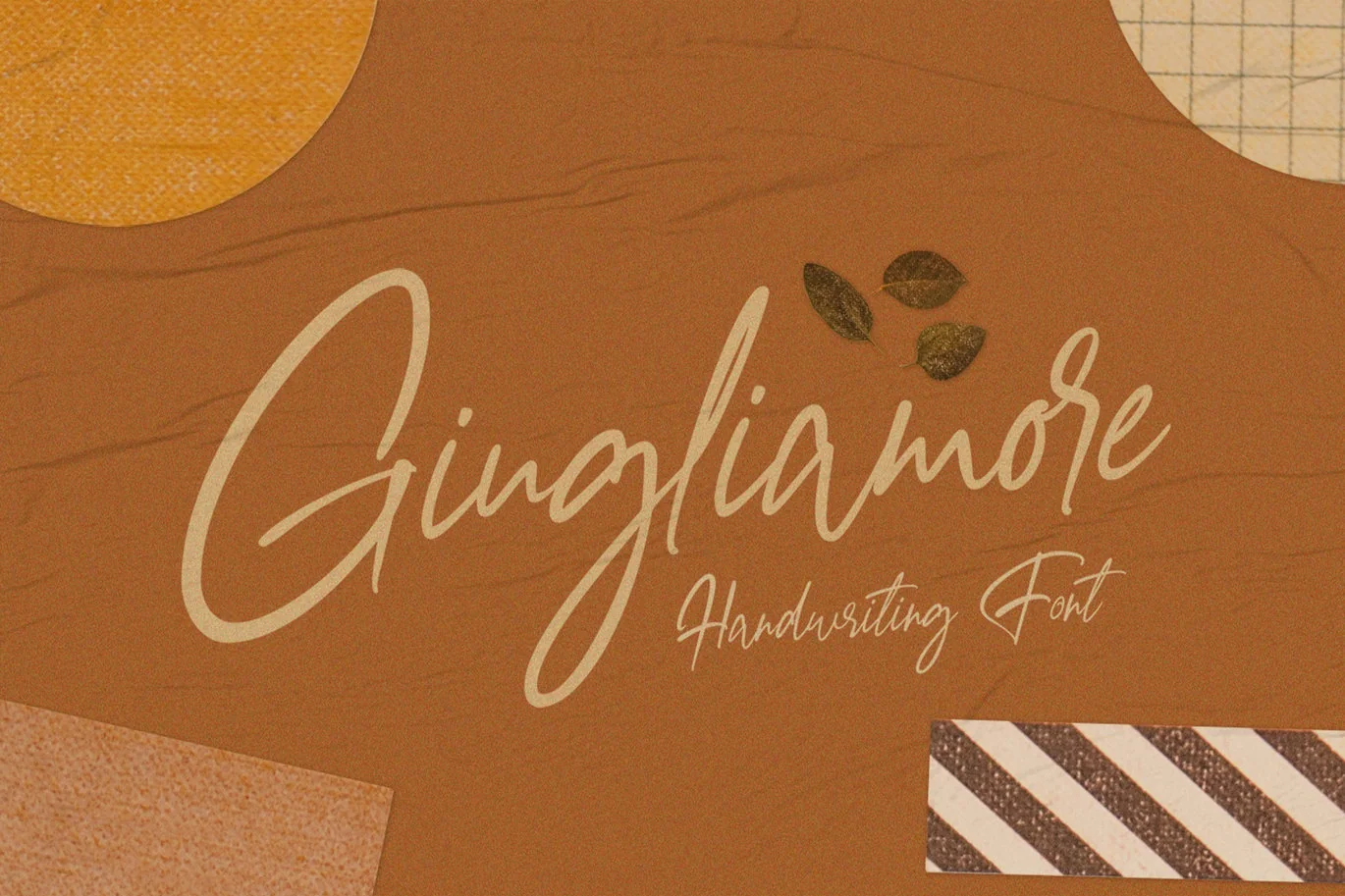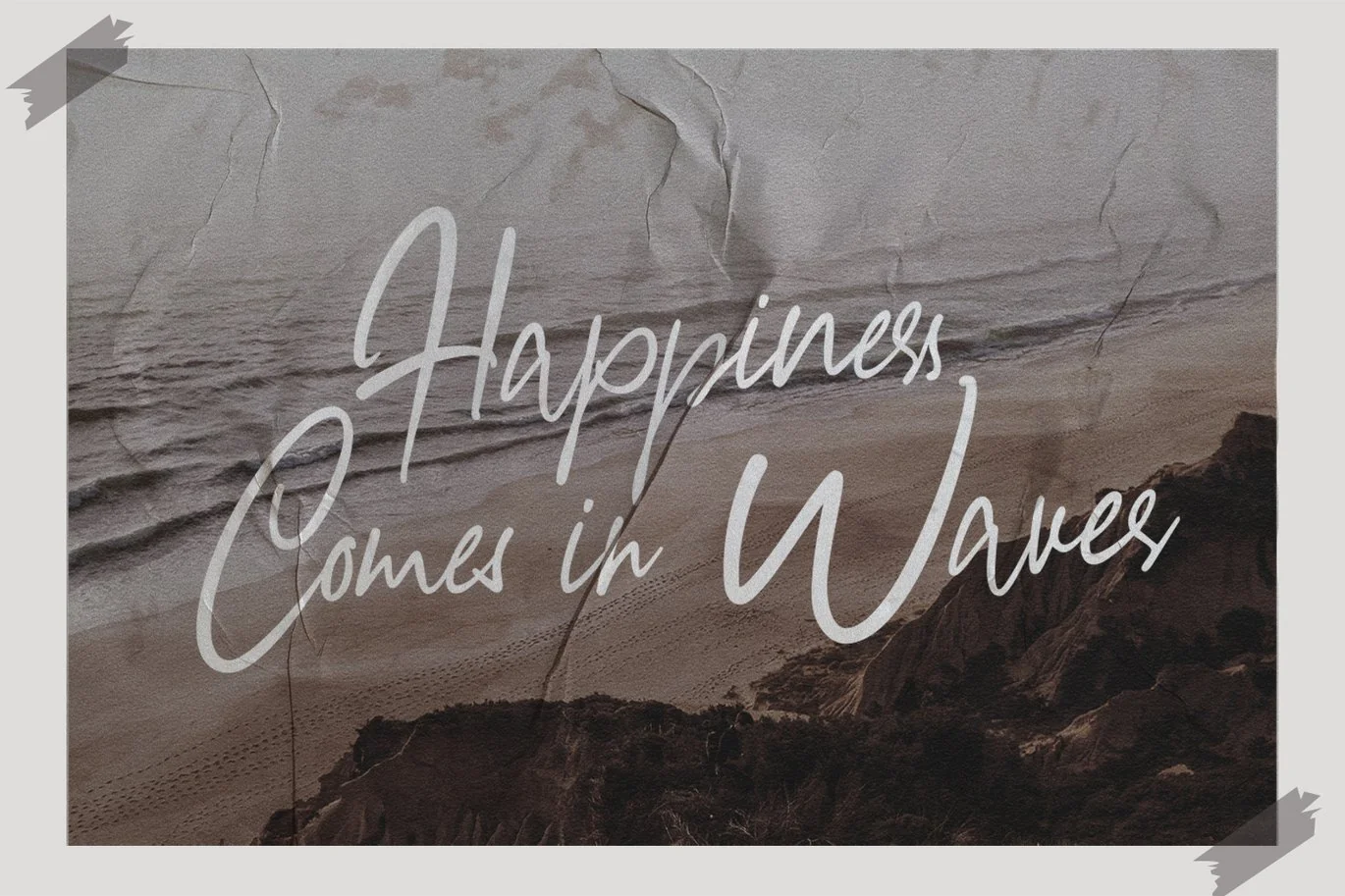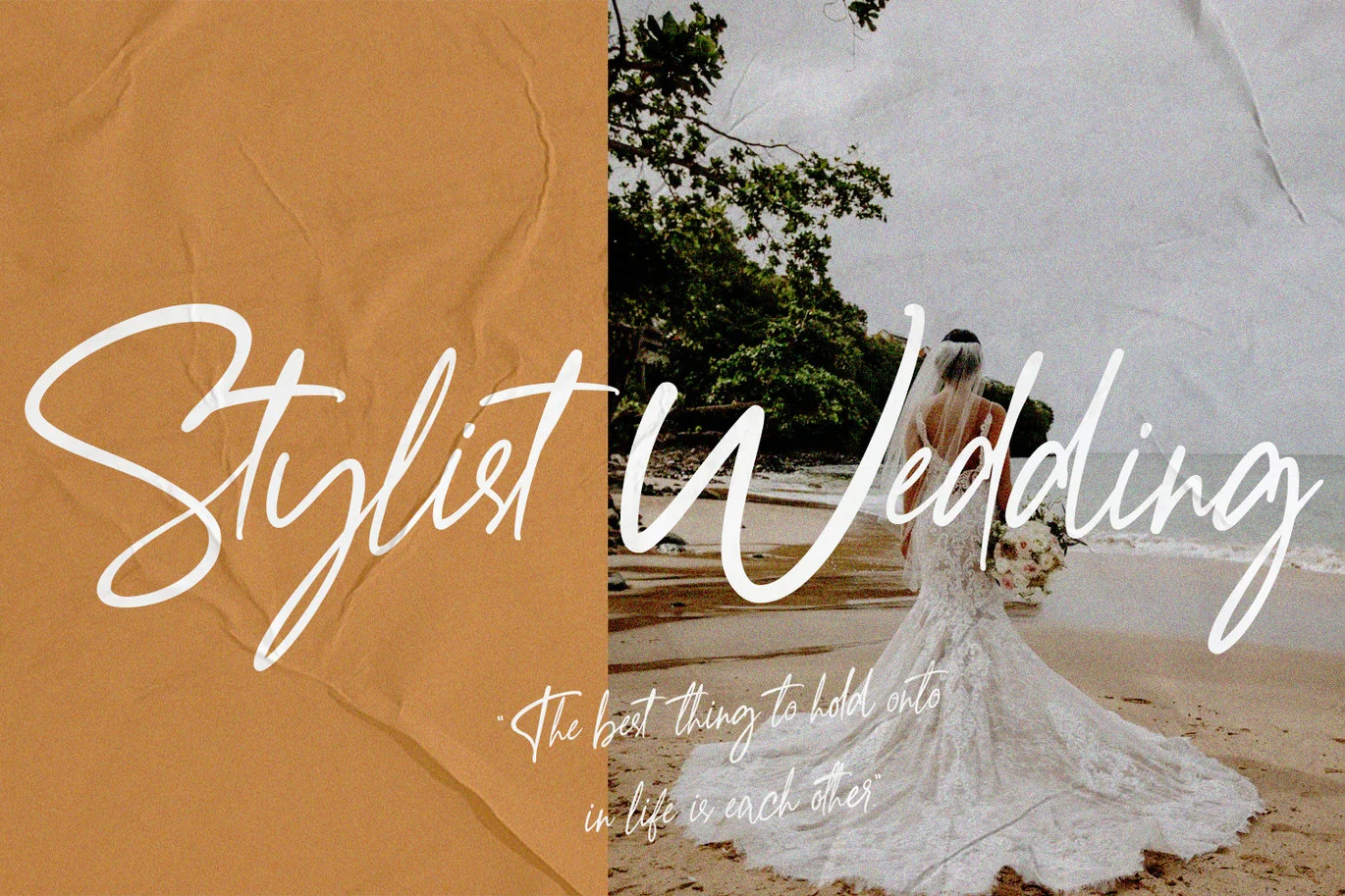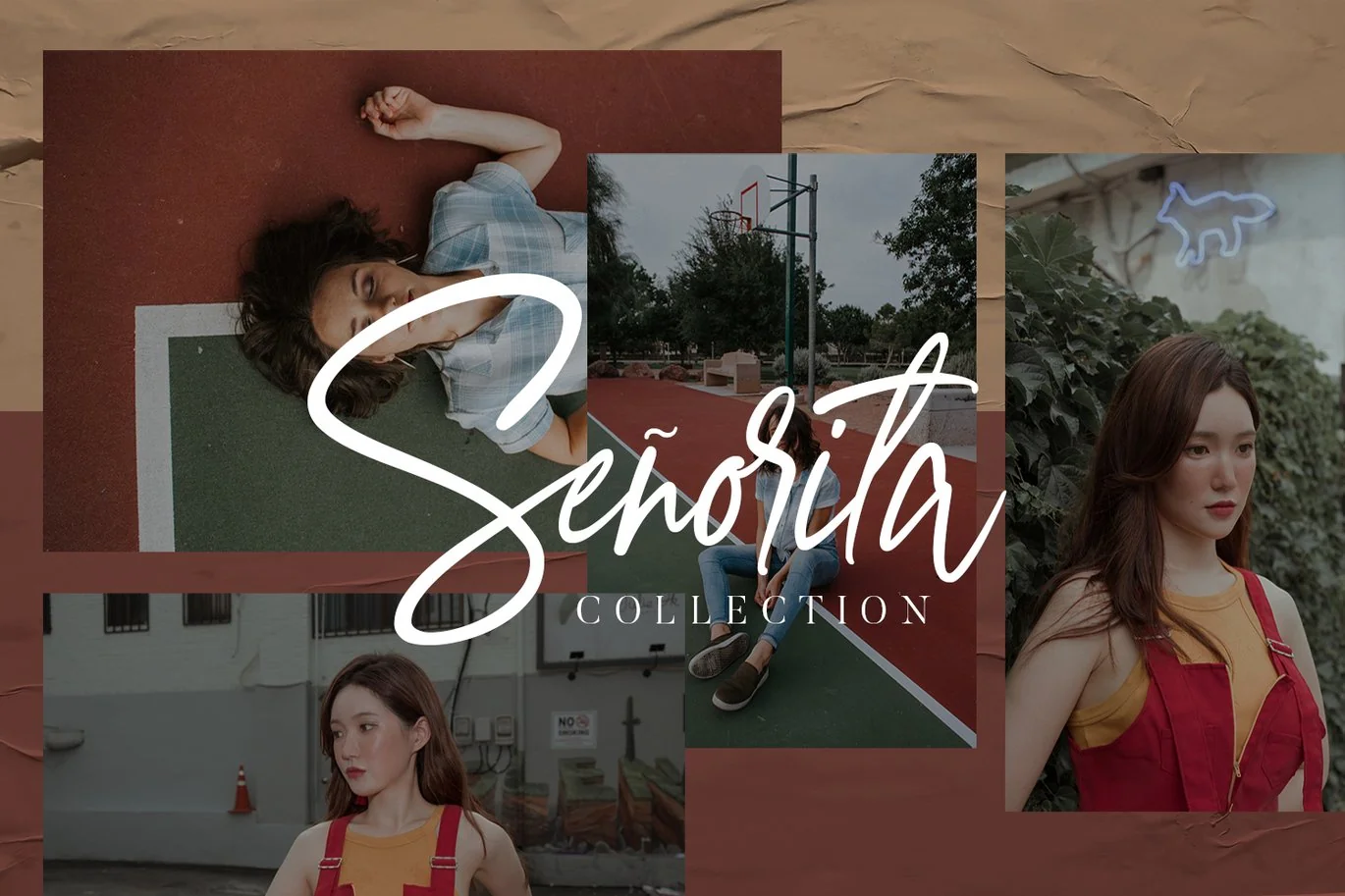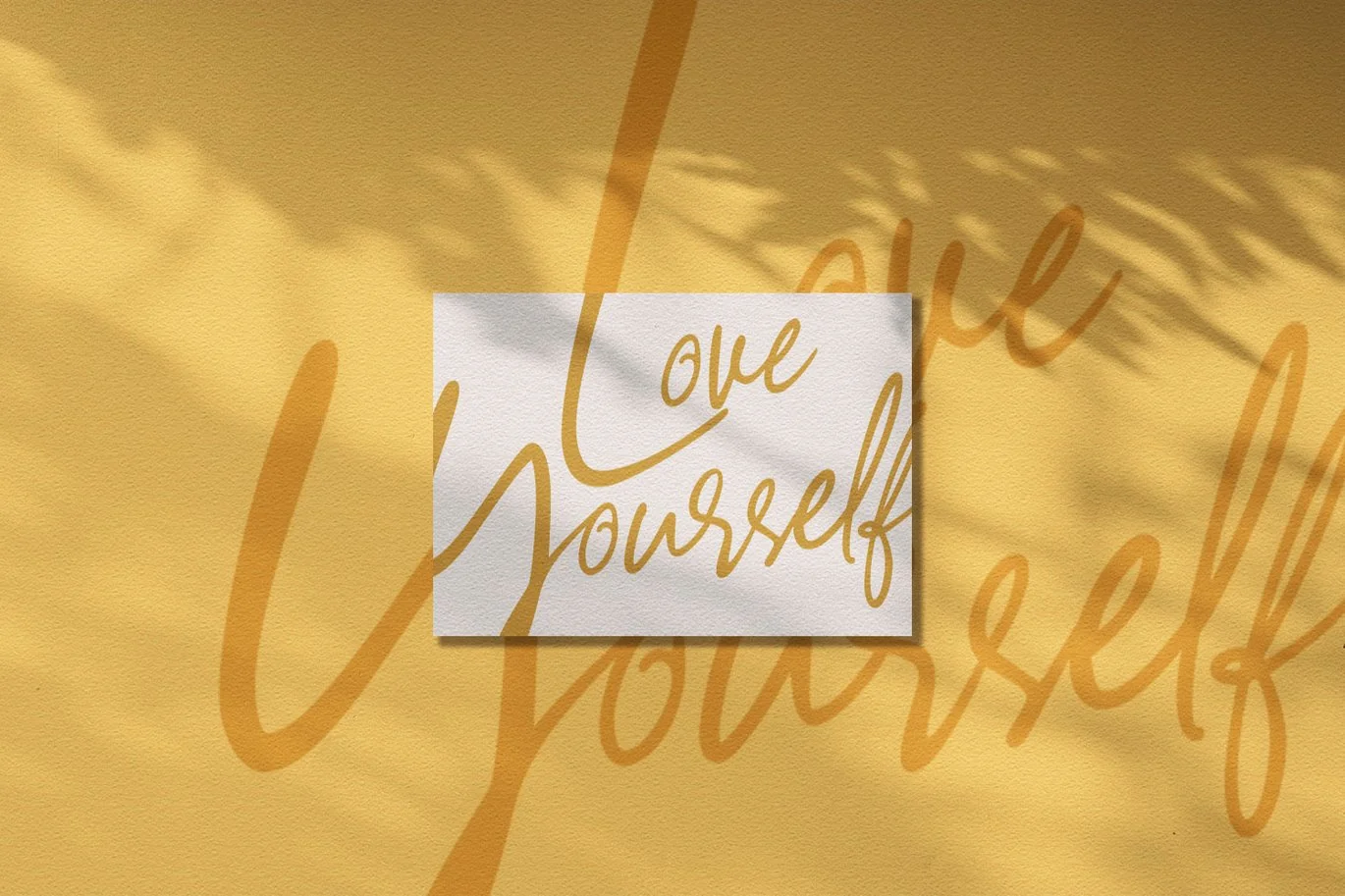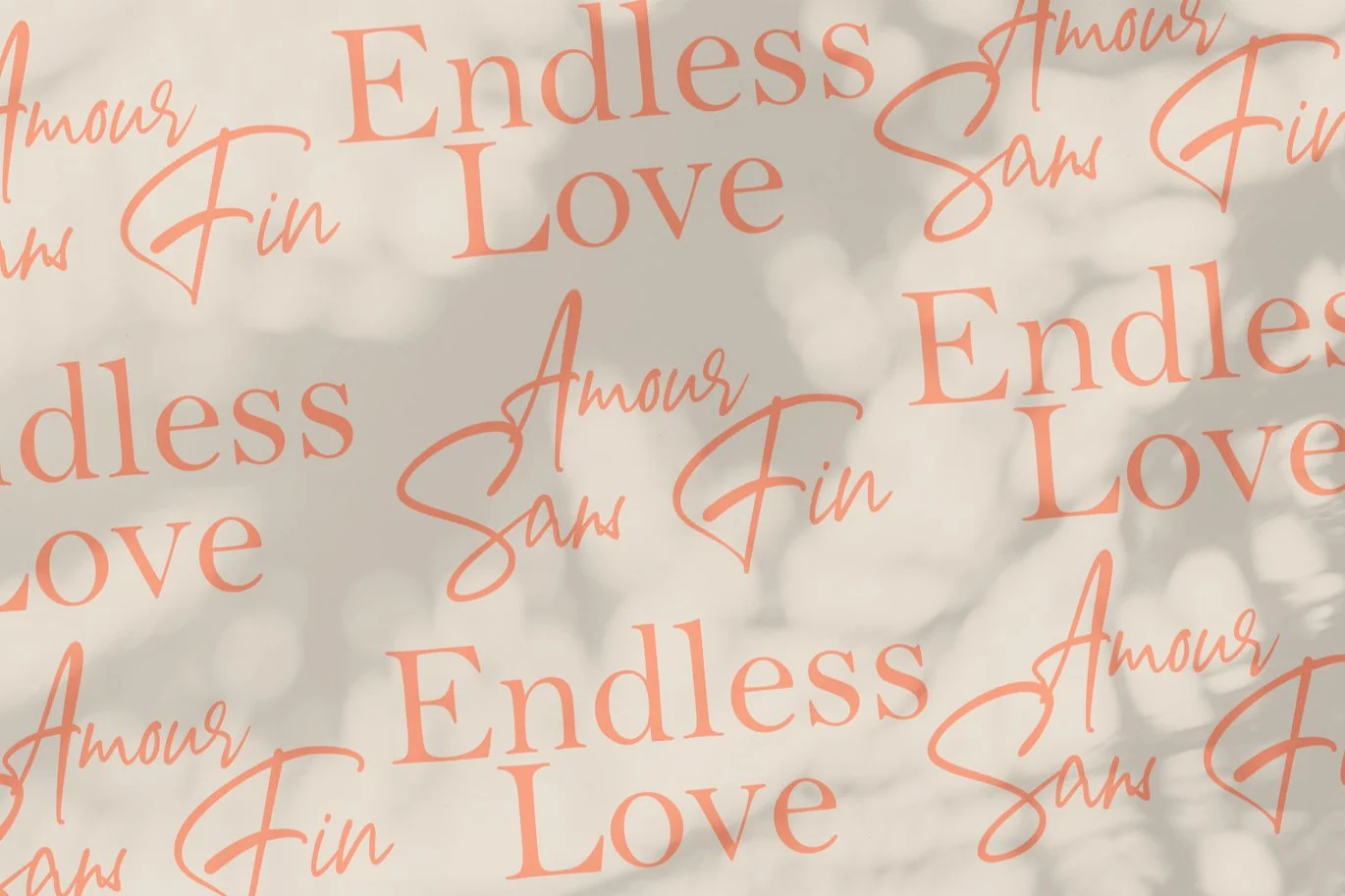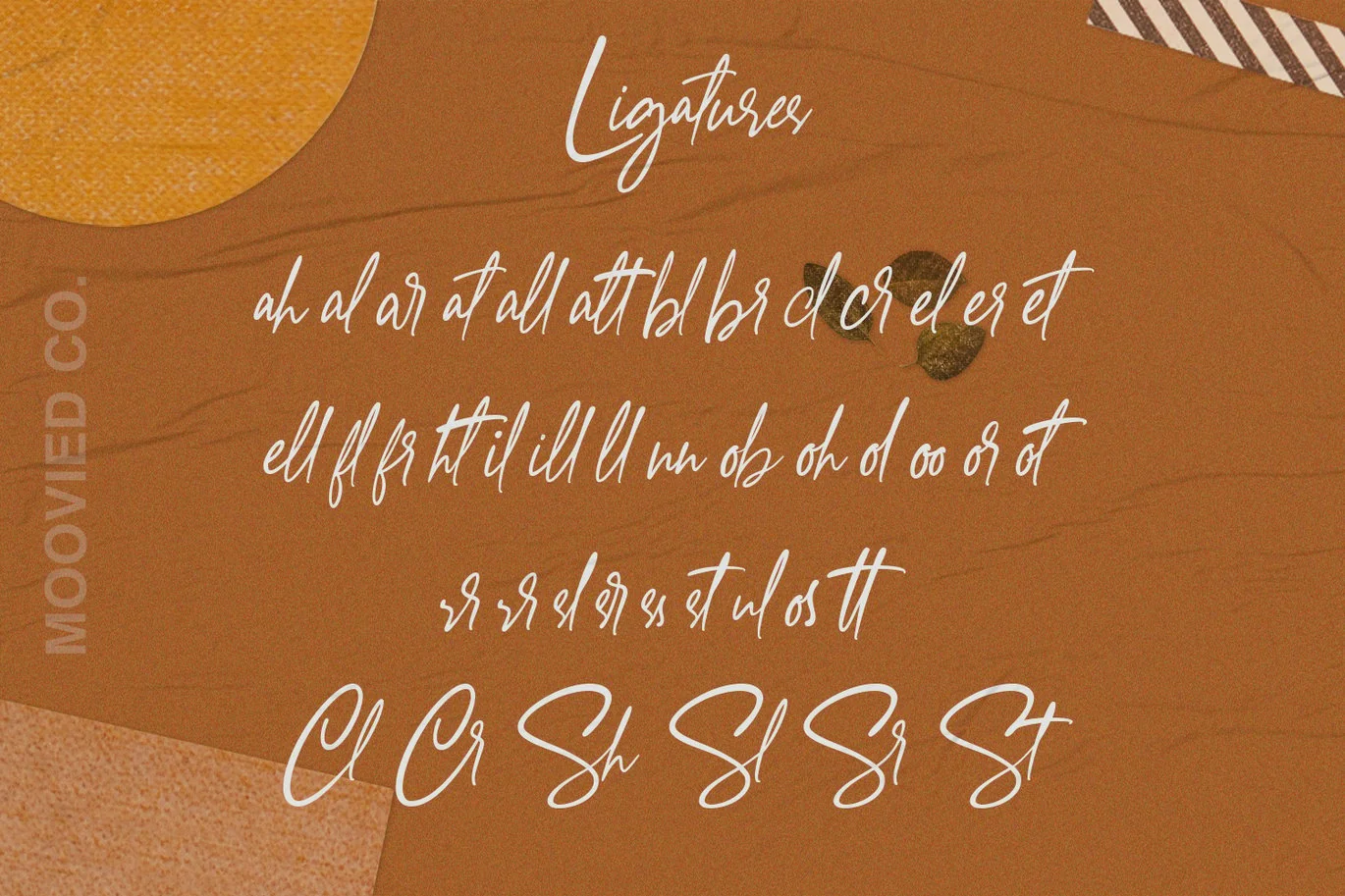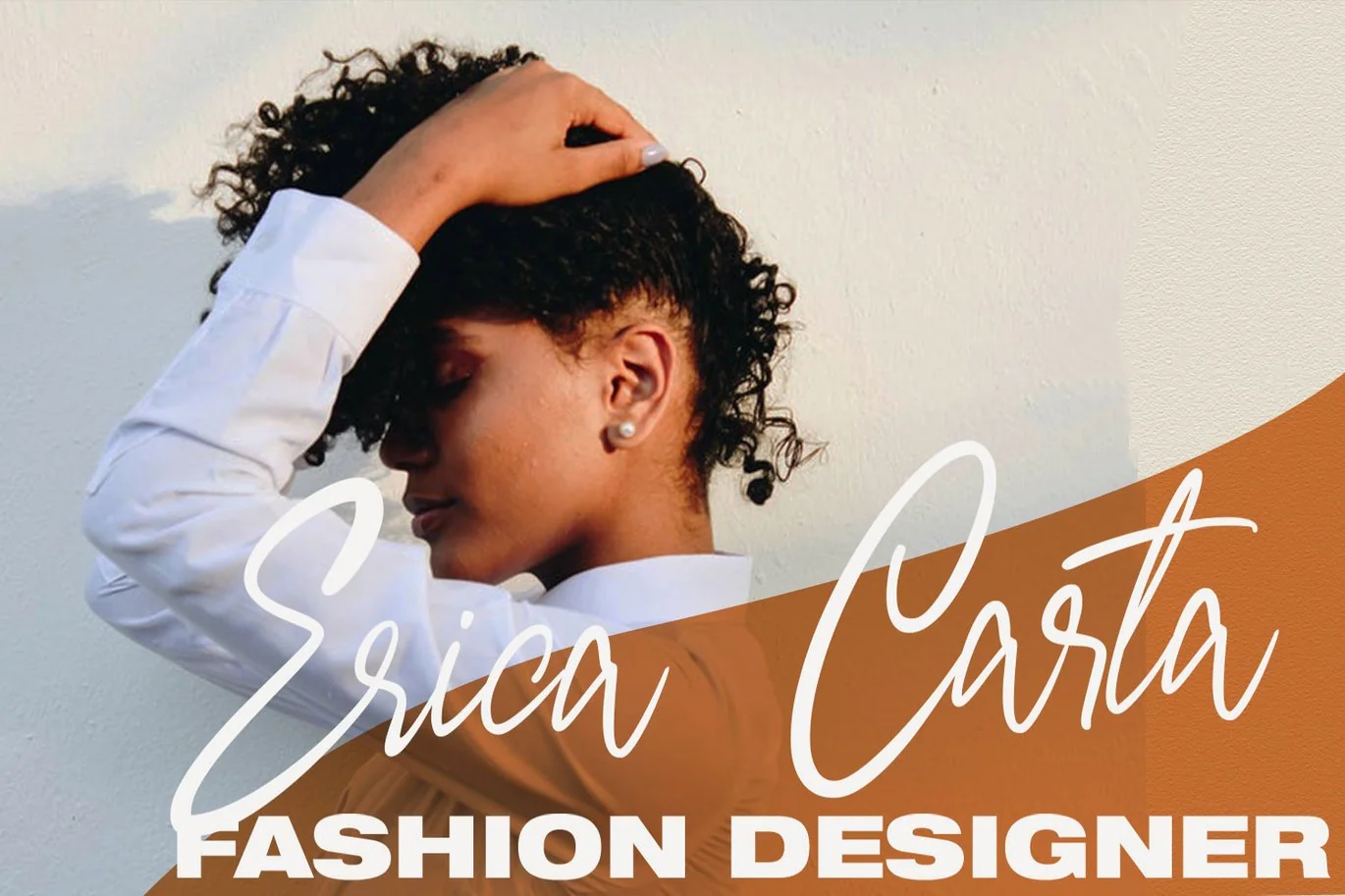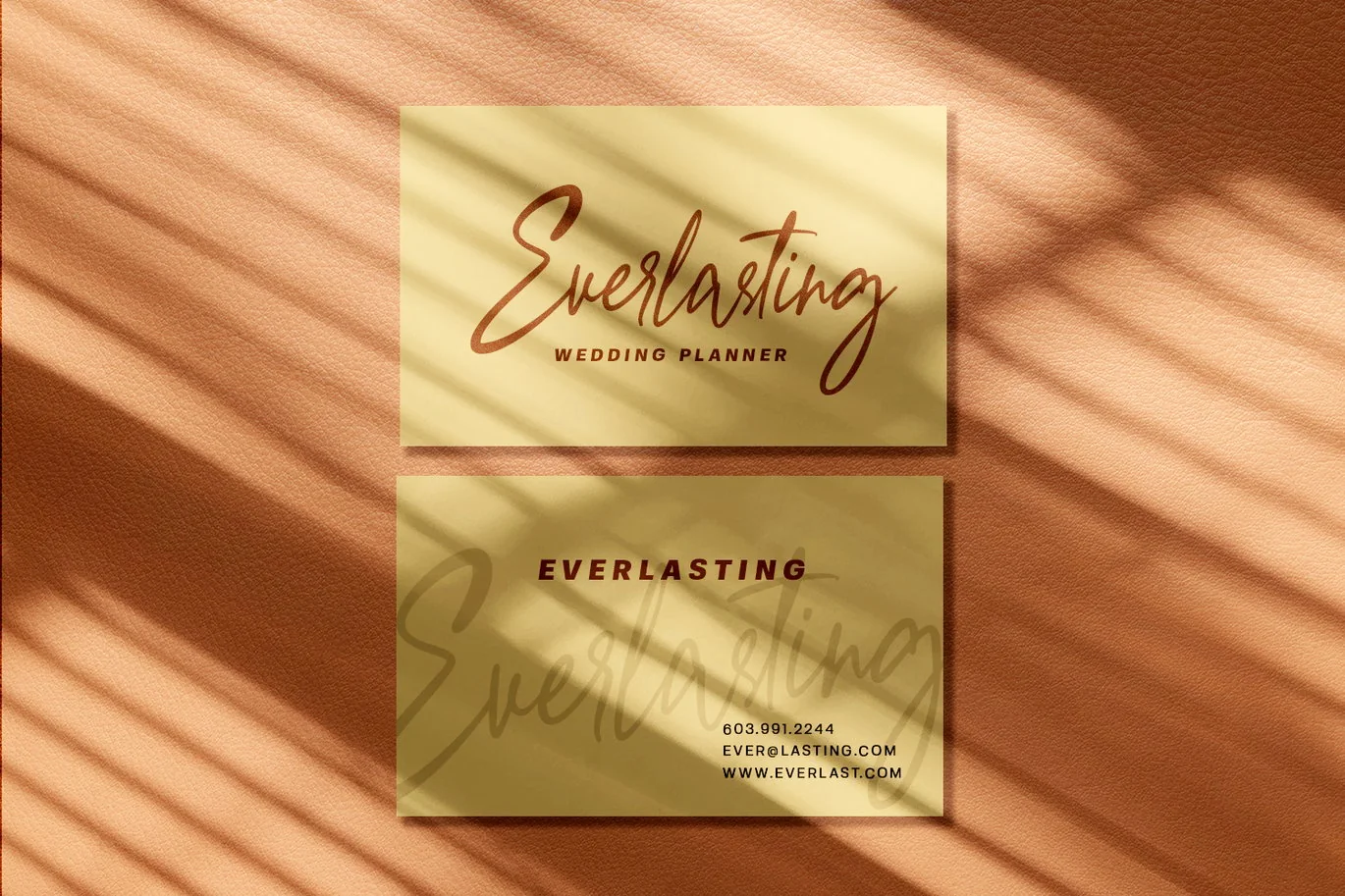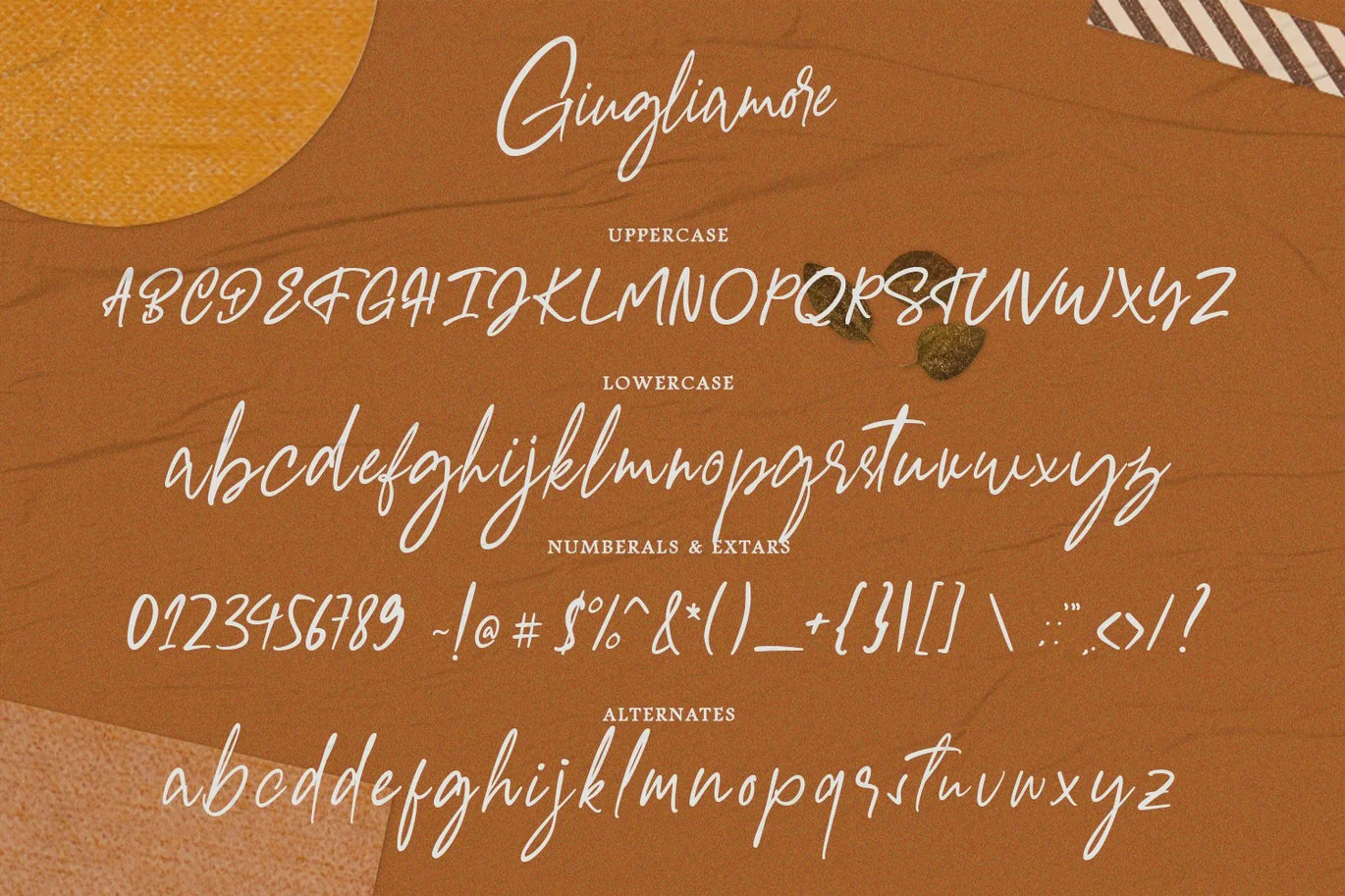
Giugliamore Handwriting Font
Giugliamore Handwriting Font is a modern signature, It is perfect for blogging, social media, branding, product packaging, wedding invitations, branding, headlines, signage, labels, signature, book covers, posters, quotes and more.
- Basic Latin A-Z and a-z,
- Alternates a-z, Numbers, Ligature
- Multilanguage Support